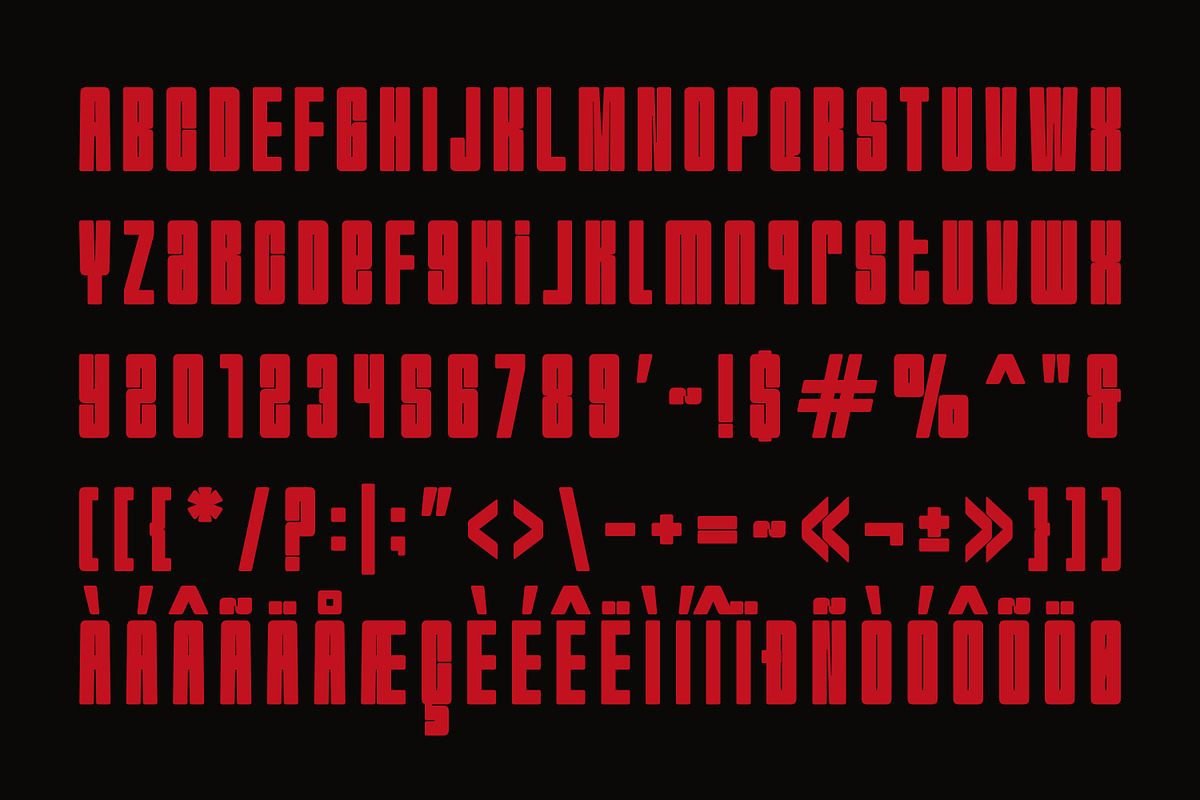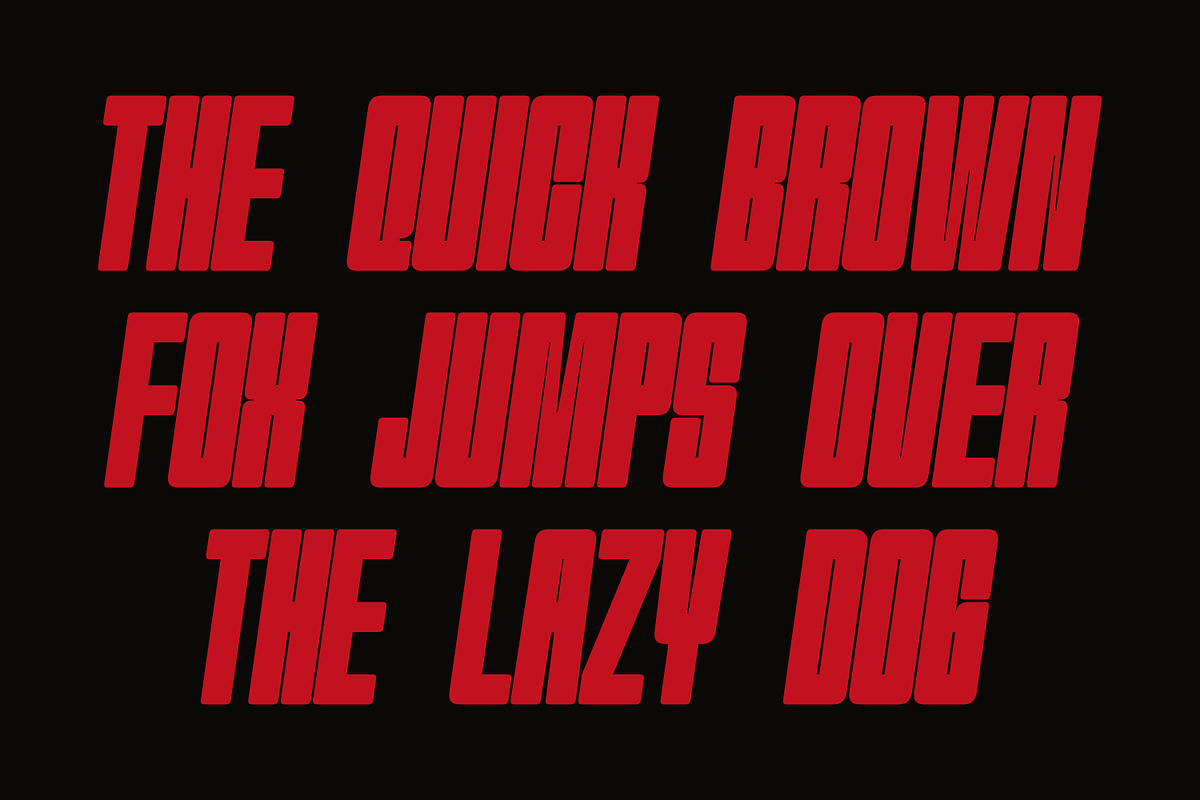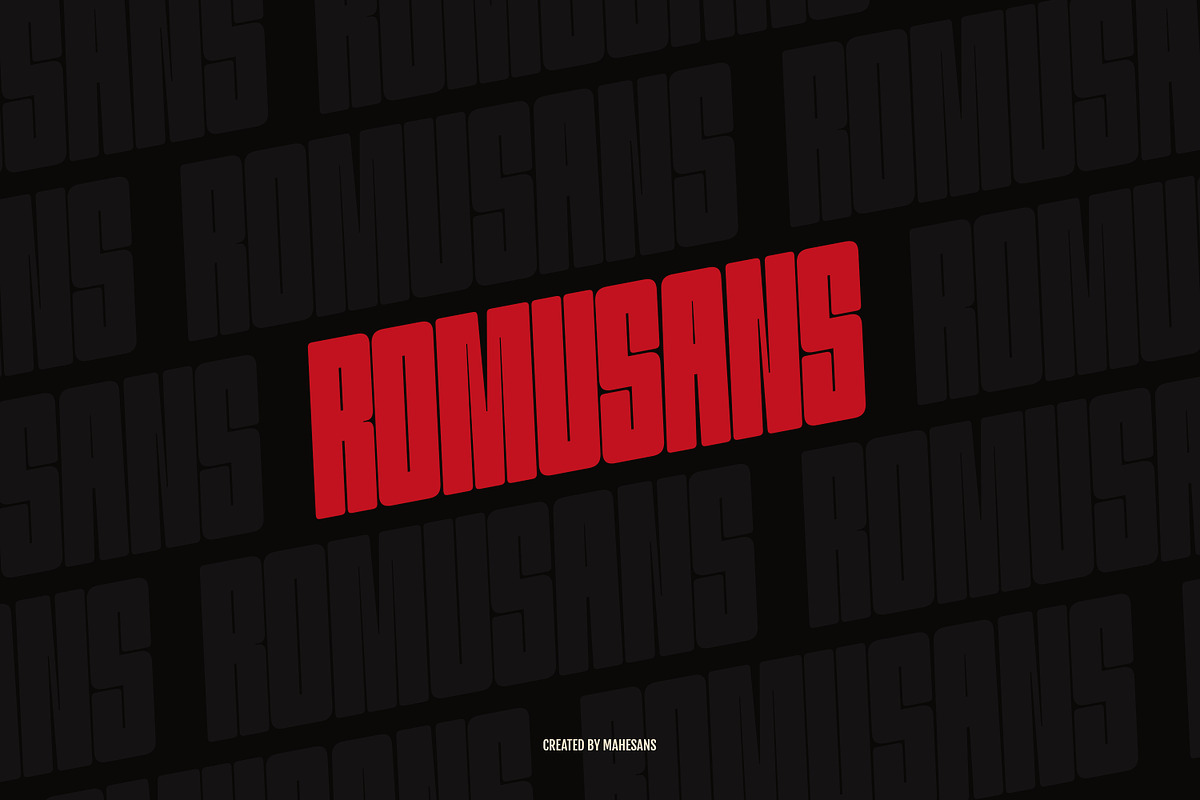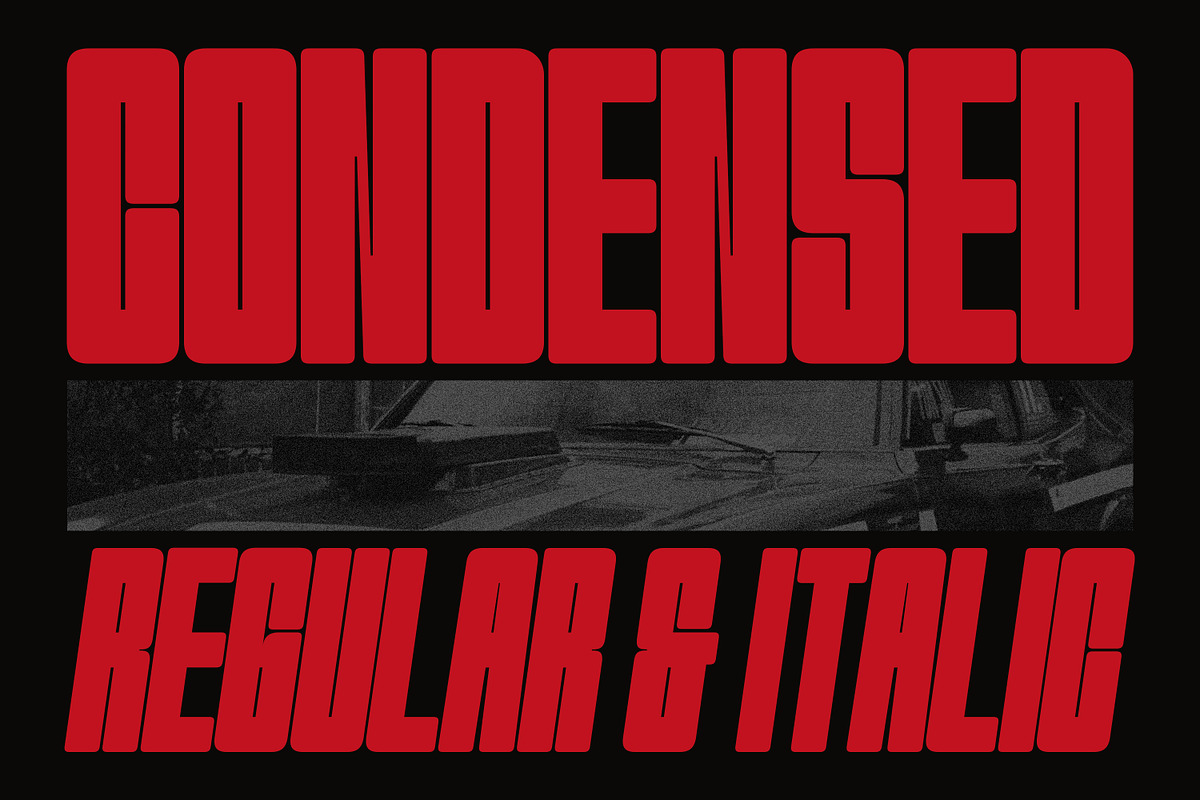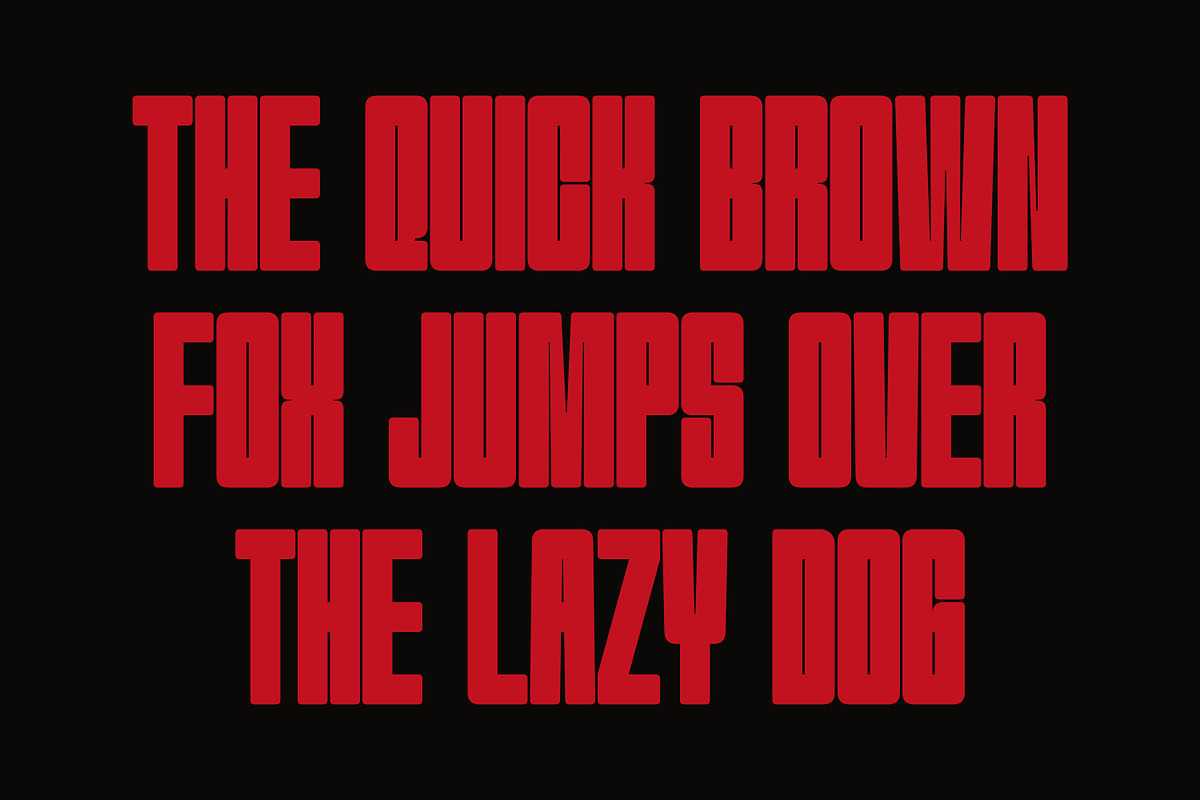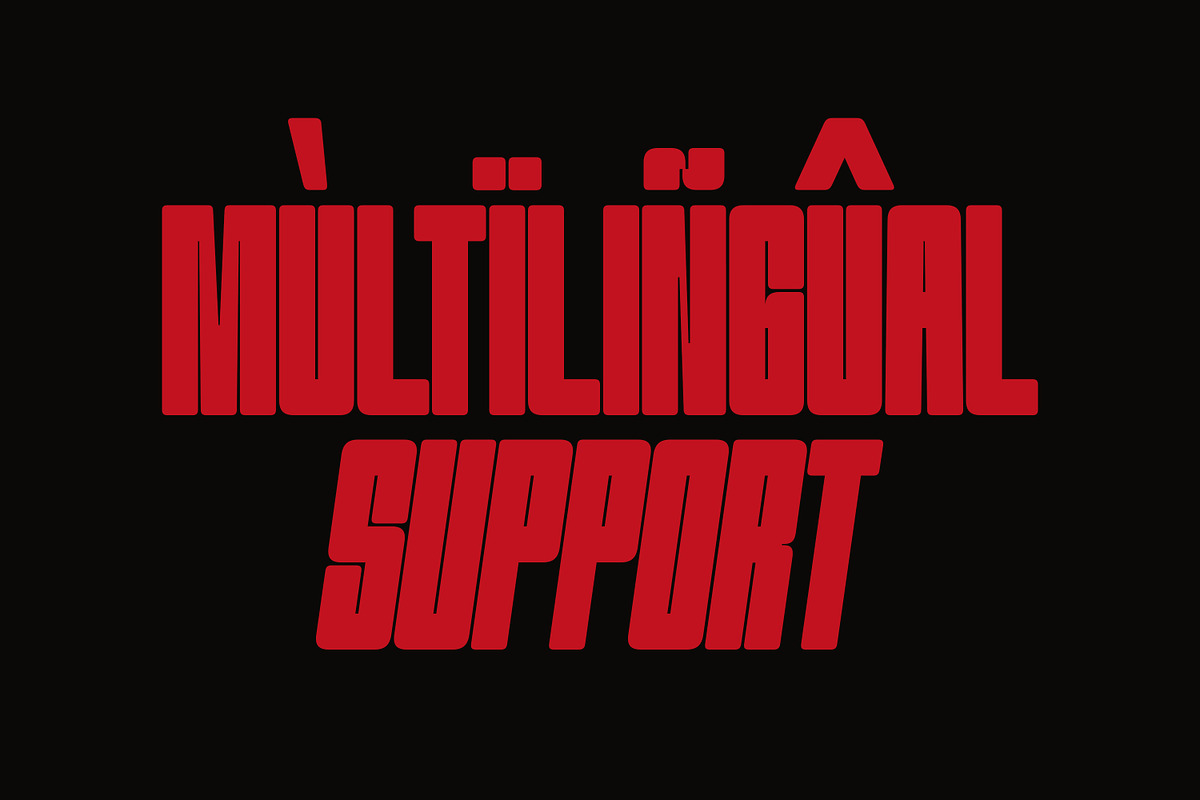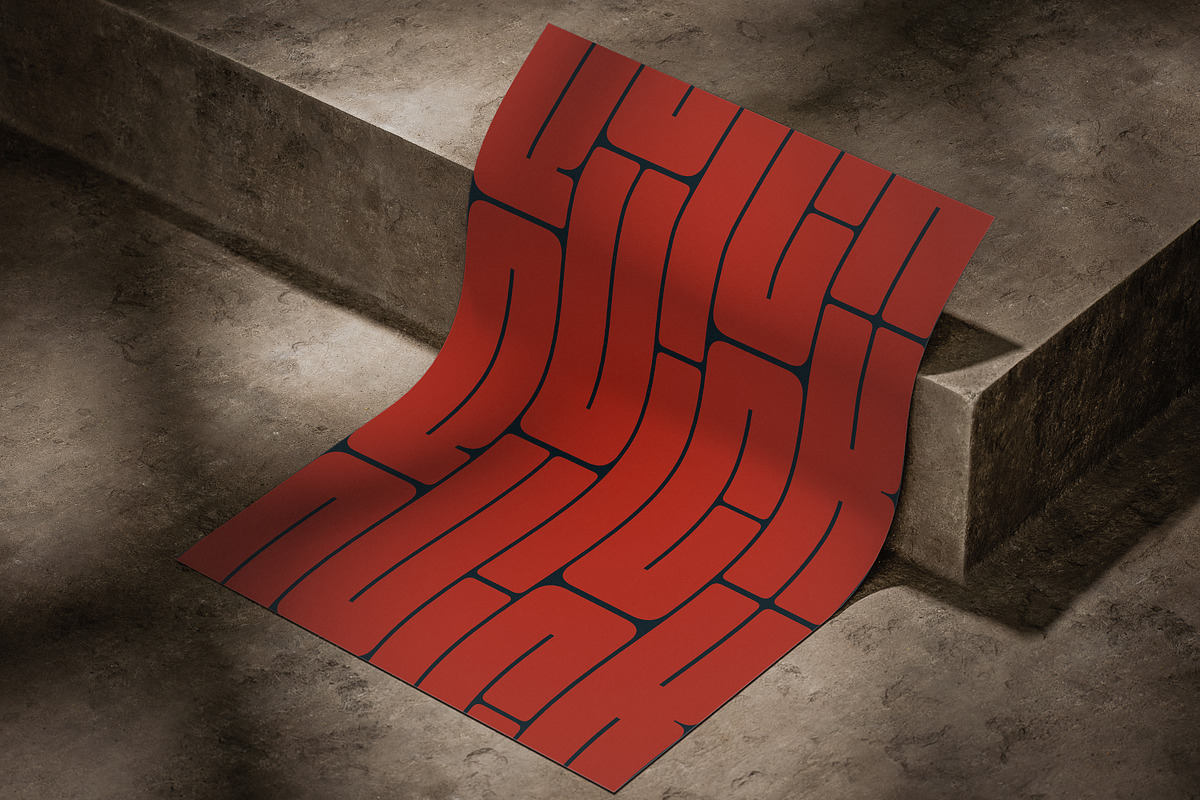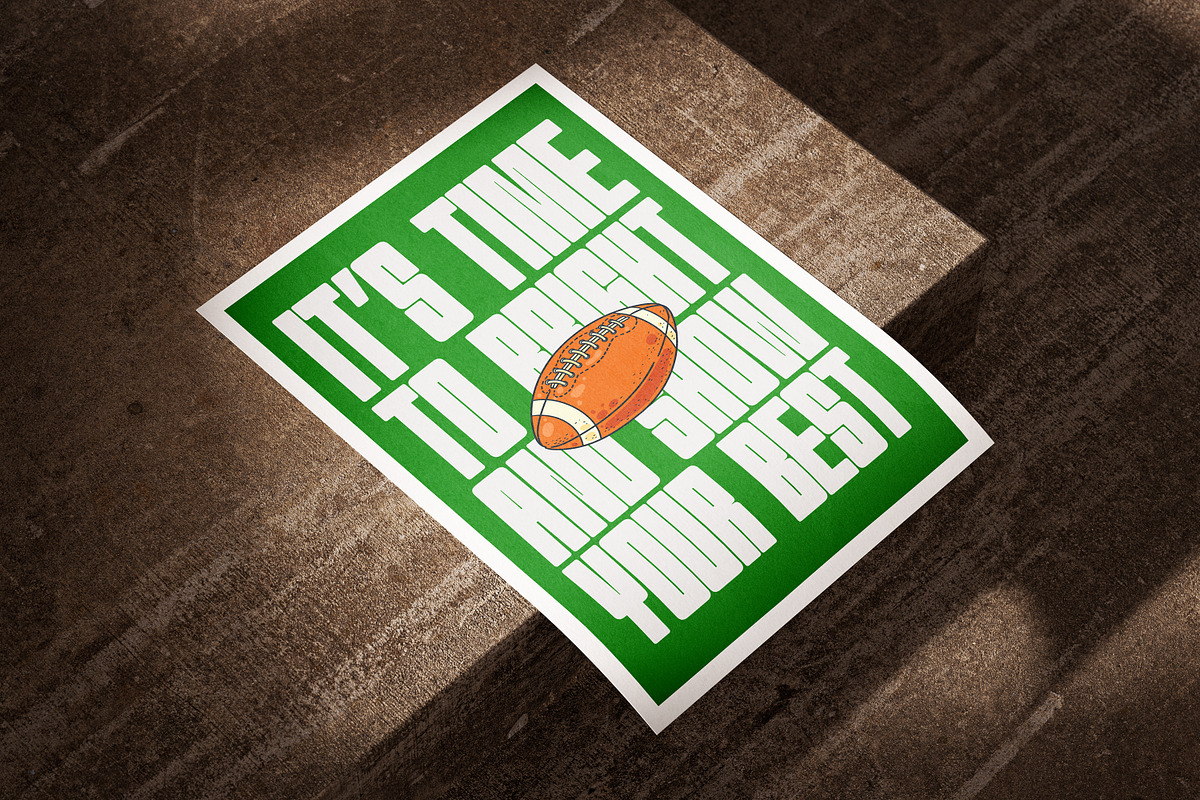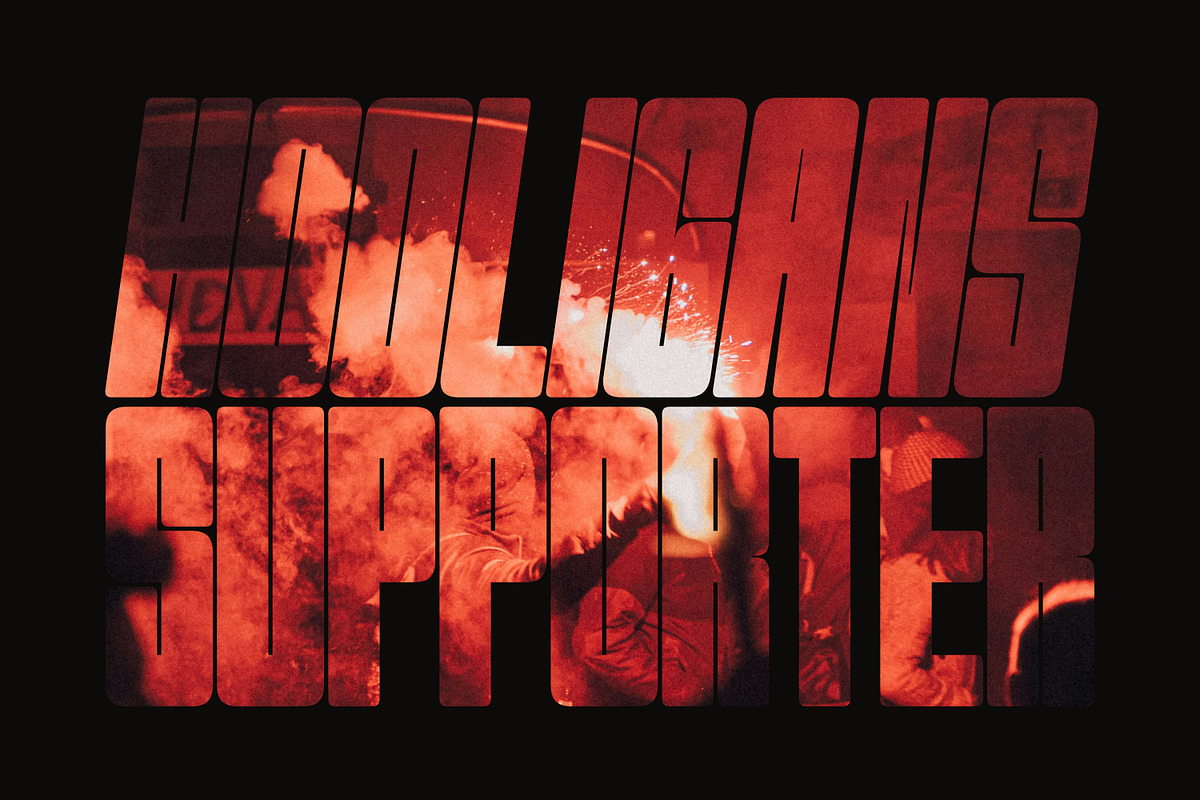
Romusans | Condensed Font Duo
Romusans is a bold, ultra-condensed sans-serif typeface that makes no apologies. Designed for maximum impact, Romusans blends brutalist geometry with soft, rounded corners—creating a unique visual tension that’s both aggressive and approachable. With its towering structure and industrial weight, Romusans is perfect for posters, album covers, sports branding, editorial headlines, and streetwear-inspired design. It comes in both upright and italic styles, giving you flexibility to add motion, rhythm, and emphasis to your compositions.
- Two Styles (Regular & Italic)
- Uppercase, Lowercase & multilingual